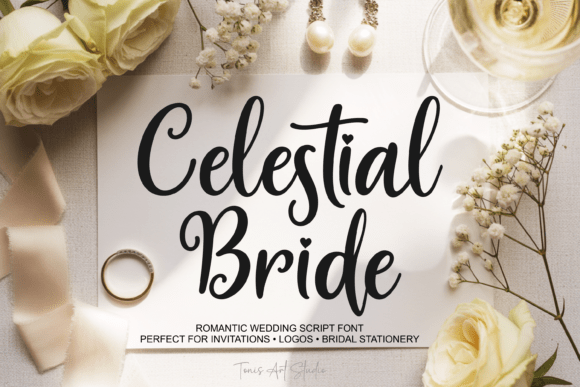
The Perfect Script for a Dream Wedding
Do you remember the moment when you stumbled upon the perfect wedding invitation design, and you knew exactly how you wanted your special day to be? For many brides and wedding planners, that moment is a crucial part of the wedding planning process. It’s the spark that sets the tone for the entire celebration.
That’s where the Celestial Bride Font comes in – a timeless and elegant script font that adds a touch of warmth and sophistication to any design. This enchanting font is perfect for brides, wedding organizers, and creative enthusiasts seeking a luxurious and personalized approach to their designs. With its sophisticated interplay of elegant swirls and gentle handwriting, the Celestial Bride Font is sure to make your wedding design stand out.
Celestial Bride Font Key Features
- Font Family: Celestial Bride
- Unique Characteristics: Ornate, elegant script with intricate flourishes and a touch of whimsy, ideal for wedding invitations, formal events, and luxury branding
- Character Set: Supports Latin, Cyrillic, and Greek alphabets, as well as a range of special characters and symbols
Celestial Bride Font Review
Overall, I’m quite impressed with the Celestial Bride Font. ✨ It has a unique and dreamy quality to it that’s perfect for creating a whimsical atmosphere. The font’s flowing lines and delicate curves evoke a sense of elegance and sophistication.
The font is well-suited for use in wedding invitations, bridal shower invitations, or any other occasion where a touch of romance is needed. It’s also a great choice for designers who want to add a bit of magic to their projects.
- Unique and dreamy aesthetic
- Elegant and sophisticated feel
- Perfect for wedding and bridal-related designs
- Great for adding a touch of magic to projects
- May not be suitable for bold or modern designs
- Some characters may be difficult to read in smaller font sizes
- Limited language support (may not work well with non-Latin scripts)
Overall, I think the Celestial Bride Font is a great choice for designers who want to add a touch of whimsy and romance to their projects. While it may have some limitations, its unique aesthetic and elegant feel make it a standout font in my book. ⚠️ Just be aware of its limitations and use it wisely!
To get the most out of the Celestial Bride Font, try using it in combination with other elegant fonts and design elements. Experiment with different font sizes, colors, and styles to create a unique and eye-catching look.
The Celestial Bride Font is perfect for creating elegant and romantic designs, such as:
- Wedding websites and blogs
- Wedding planners and organizers
- Romantic greeting cards and gift tags
Alternatives to Celestial Bride Font
Great Vibes Font is a beautiful, elegant script font suitable for wedding invitations, event branding, and other romantic designs. It features flowing lines and soft curves, giving it a whimsical and dreamy feel.
Compared to Celestial Bride Font, Great Vibes Font has a more classic and timeless look, while Celestial Bride Font has a more modern and edgy feel. Great Vibes Font is ideal for traditional weddings and events, while Celestial Bride Font is better suited for modern and trendy designs.
Carolyna Pro Font is a sophisticated and luxurious script font perfect for high-end weddings, luxury brands, and elegant designs. It features intricate details and ornate flourishes, giving it a regal and sophisticated look.
Compared to Celestial Bride Font, Carolyna Pro Font has a more formal and elegant feel, while Celestial Bride Font has a more playful and whimsical look. Carolyna Pro Font is ideal for formal weddings and events, while Celestial Bride Font is better suited for casual and relaxed designs.
Alex Brush Font is a elegant and refined script font suitable for wedding invitations, event branding, and other romantic designs. It features soft curves and delicate lines, giving it a romantic and feminine feel.
Compared to Celestial Bride Font, Alex Brush Font has a more classic and timeless look, while Celestial Bride Font has a more modern and edgy feel. Alex Brush Font is ideal for traditional weddings and events, while Celestial Bride Font is better suited for modern and trendy designs.